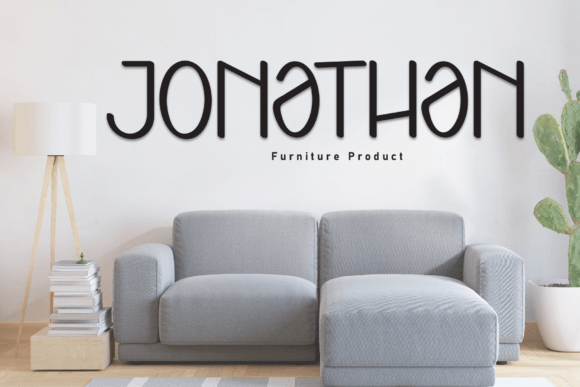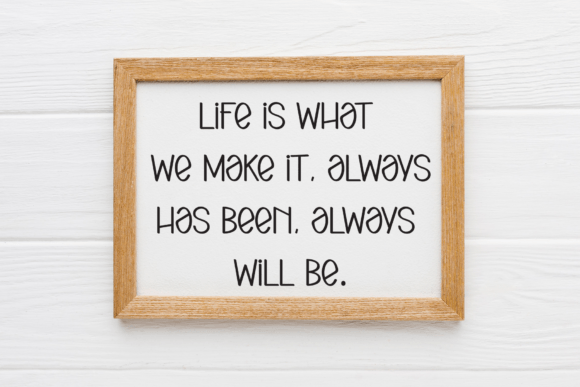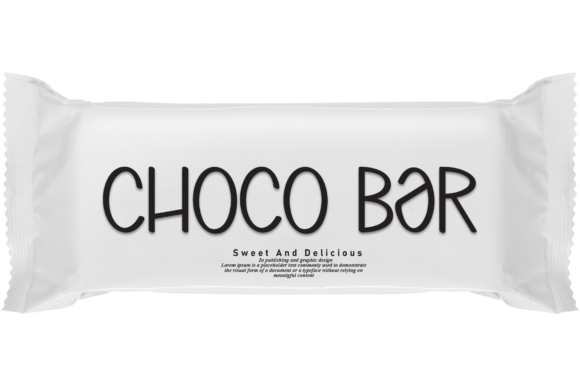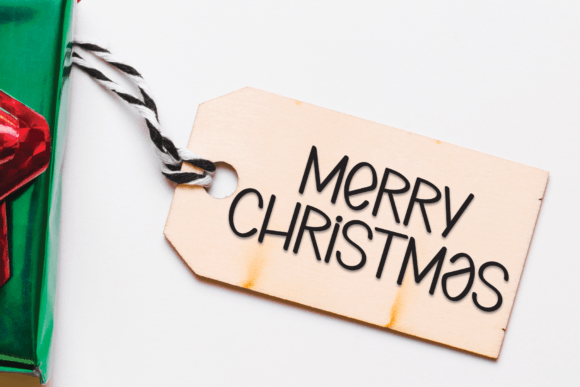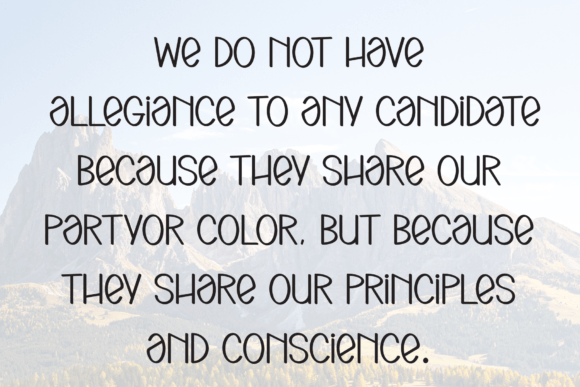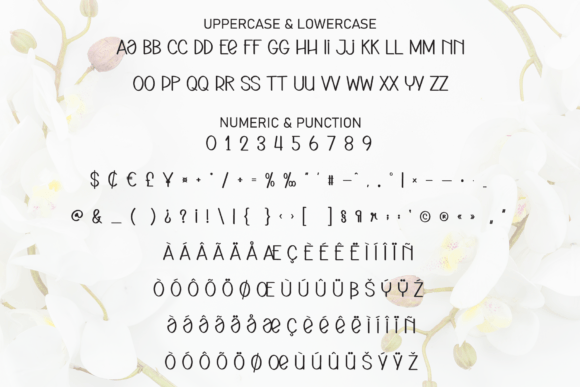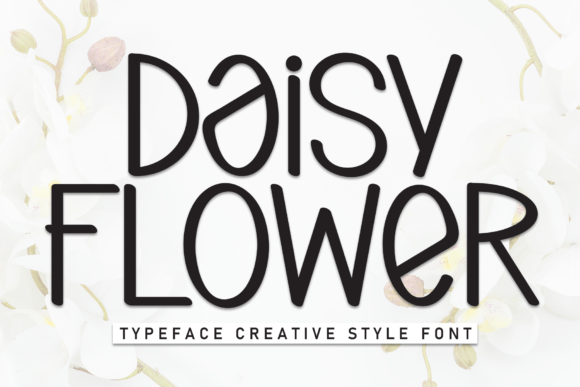
Daisy Flower Font: Add a Touch of Whimsy to Your Designs
Are you looking for a font that can add a dash of playfulness and joy to your creative projects? Look no further than the delightful Daisy Flower Font! This charming handwritten display font is guaranteed to bring a smile to your face and a touch of whimsy to your designs. In this article, we’ll dive into the world of Daisy Flower Font and explore its features, uses, and benefits.
What is Daisy Flower Font?
Daisy Flower Font is a beautiful, handwritten display font that exudes joy and playfulness. Its charming and affectionate design makes it perfect for a wide range of creative projects, from wedding invitations and greeting cards to posters, flyers, and more. This delightful font is sure to capture the essence of happiness and fun, making it an ideal choice for designers and crafters looking to add a personal touch to their work.
Features of Daisy Flower Font
So, what makes Daisy Flower Font so special? Here are some of its key features:
- Handwritten design: Daisy Flower Font boasts a beautiful, handwritten design that gives it a personal and unique touch.
- Playful and joyful: This font is all about spreading joy and happiness, making it perfect for projects that require a lighthearted and playful tone.
- Versatile: Daisy Flower Font can be used for a wide range of creative projects, from digital designs to print materials.
- Easy to read: Despite its playful design, Daisy Flower Font is easy to read and understand, making it perfect for body text and headlines.
Uses of Daisy Flower Font
So, how can you use Daisy Flower Font in your creative projects? Here are some ideas to get you started:
- Wedding invitations: Add a touch of romance and whimsy to your wedding invitations with Daisy Flower Font.
- Greeting cards: Create beautiful and playful greeting cards for birthdays, holidays, and special occasions.
- Posters and flyers: Use Daisy Flower Font to create eye-catching posters and flyers for events, promotions, and products.
- Social media graphics: Add a personal touch to your social media graphics with Daisy Flower Font.
Benefits of Using Daisy Flower Font
So, why should you choose Daisy Flower Font for your creative projects? Here are some benefits:
- Unique and personal touch: Daisy Flower Font adds a unique and personal touch to your designs, setting them apart from the rest.
Tips for Using Daisy Flower Font
Here are some tips for using Daisy Flower Font in your creative projects:
- Pair with complementary fonts: Pair Daisy Flower Font with complementary fonts to create a unique and visually appealing design.
- Experiment with colors: Experiment with different colors and textures to add depth and interest to your design.
- Keep it simple: Don’t overcomplicate your design – keep it simple and let Daisy Flower Font shine.